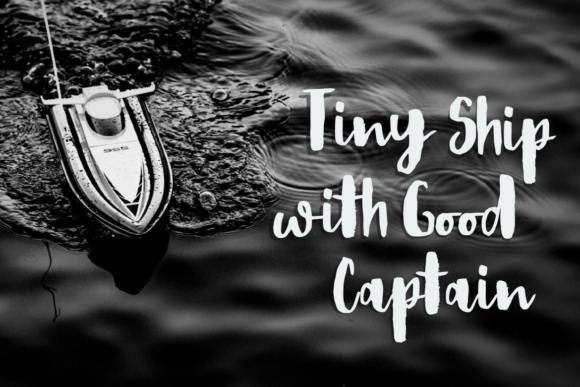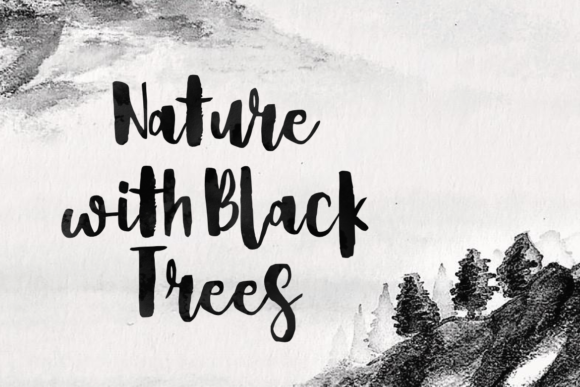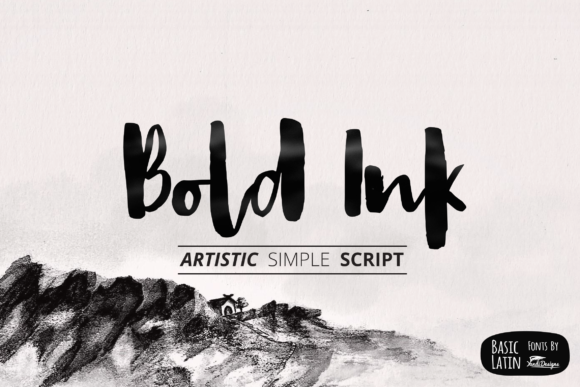
Introducing Bold Ink Font: Elevate Your Designs with a Modern Handwritten Brush Style
Are you tired of using the same old fonts for your design projects? Look no further! Bold Ink Font is a modern handwritten brush font that can add a distinct touch to your logos, book covers, t-shirt designs, and more. With its unique and stylish aesthetic, this font is perfect for designers and crafters looking to give their work a fresh and creative spin.
What is Bold Ink Font?
Bold Ink Font is a carefully crafted handwritten brush font that exudes a sense of modernity and sophistication. Its bold strokes and fluid letterforms make it perfect for creating eye-catching designs that stand out from the crowd. Whether you’re working on a logo, book cover, or t-shirt design, this font is sure to make a statement.
Key Features of Bold Ink Font
- Modern Handwritten Style: Bold Ink Font boasts a fresh and contemporary handwritten style that’s perfect for designers looking for a unique aesthetic.
- Brush Font: The font’s brush-like strokes give it a organic and natural feel that’s perfect for creating hand-crafted designs.
- Bold and Expressive: With its bold letterforms and expressive strokes, Bold Ink Font is perfect for creating eye-catching designs that demand attention.
- Versatile: This font is suitable for a wide range of design projects, including logos, book covers, t-shirt designs, and more.
Why Choose Bold Ink Font?
So, why should you choose Bold Ink Font for your next design project? Here are just a few reasons:
- Stand Out from the Crowd: With its unique and stylish aesthetic, Bold Ink Font can help your designs stand out from the competition.
- Easy to Read: Despite its bold and expressive style, Bold Ink Font is surprisingly easy to read, making it perfect for designs that require a clear and concise message.
- Customizable: As a digital font, Bold Ink Font can be easily customized to fit your design needs, including adjusting the size, color, and style.
How to Use Bold Ink Font in Your Designs
Using Bold Ink Font in your designs is easy! Here are a few tips to get you started:
- Pair it with a Simple Background: Bold Ink Font works best when paired with a simple background that allows the font to take center stage.
- Experiment with Colors: Don’t be afraid to experiment with different colors and textures to add depth and interest to your design.
- Use it for Headlines and Titles: Bold Ink Font is perfect for headlines and titles, where its bold and expressive style can really shine.